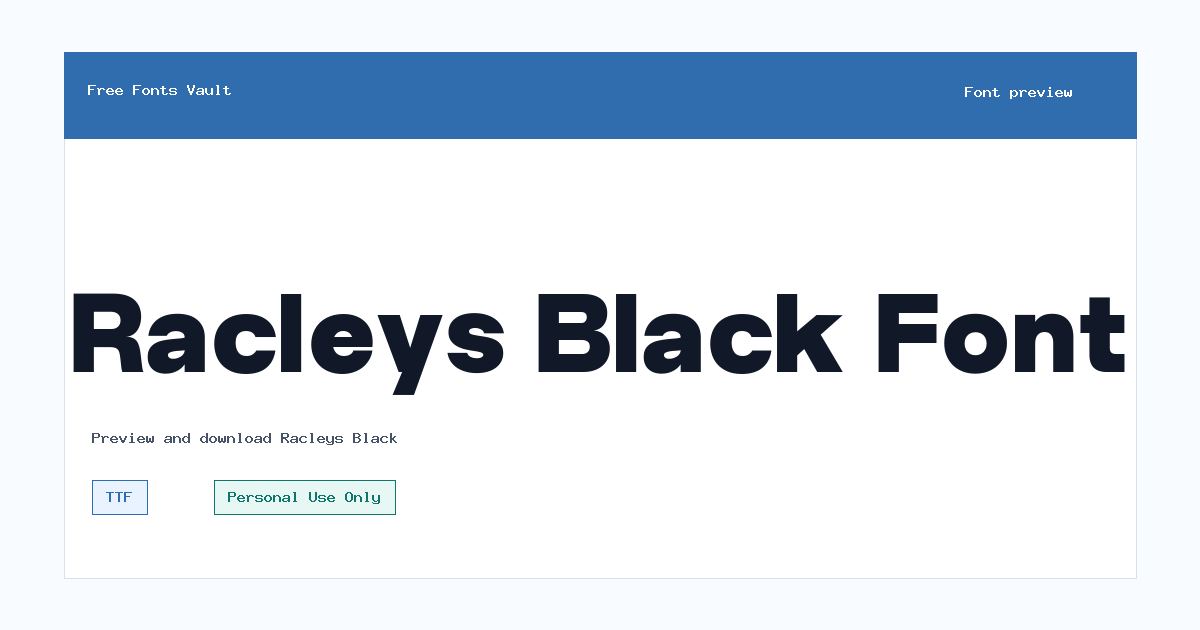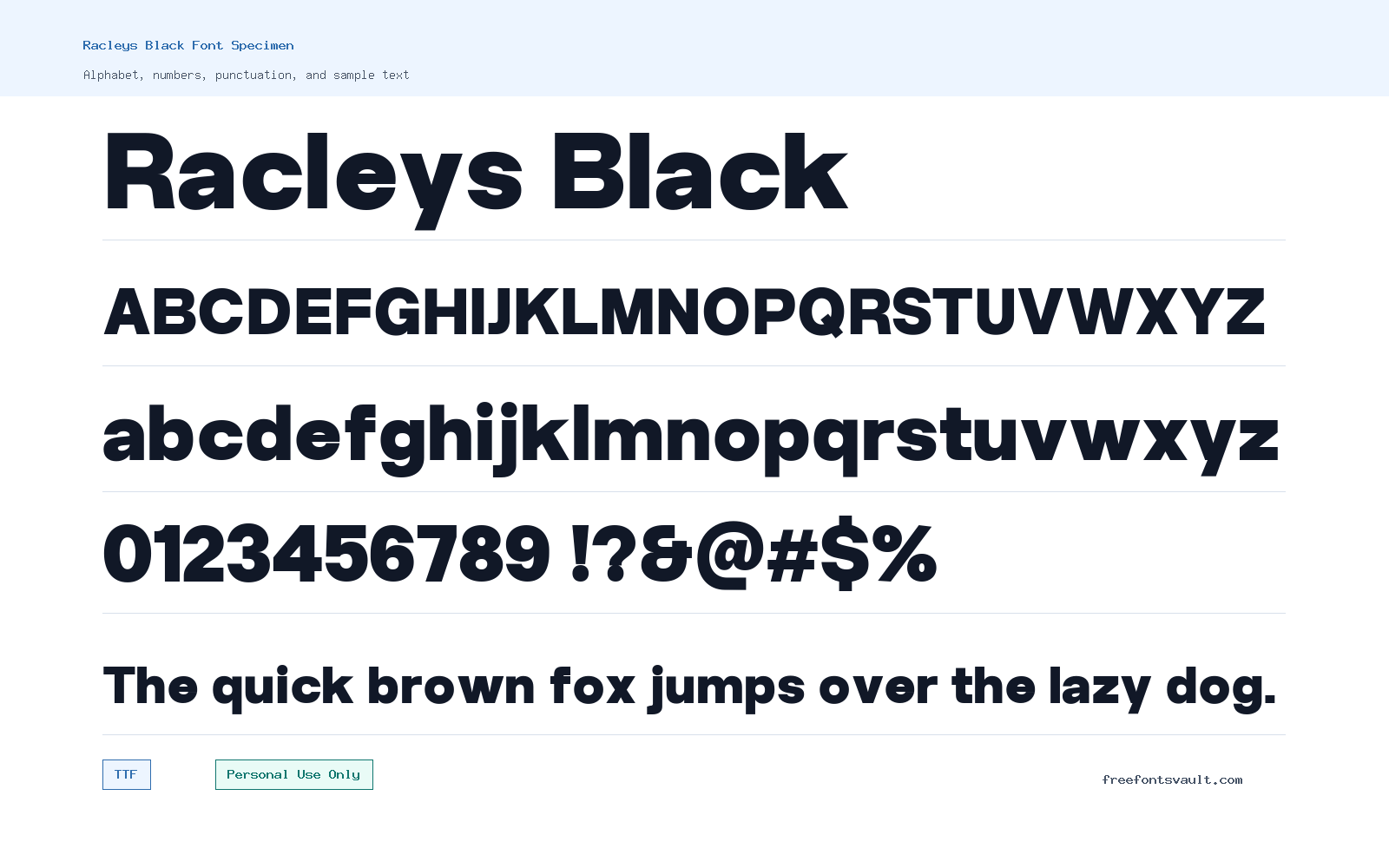
Racleys Black
Racleys Black Font
Racleys Black is a heavy display font with a strong 900-weight style, made for short text that needs clear visual impact. It is best tested in large sizes, where its bold shape can carry titles, posters, logo drafts, and branding mockups.
About Racleys Black
Racleys Black is the black-weight style from the Racleys family name, with a TTF font file and a normal style setting. Because the available weight is 900, it is built around presence rather than quiet reading. Use it where a few words need to stand out: a headline, badge, cover title, label, social graphic, or display block. It is not the kind of font to choose first for long paragraphs, small captions, or dense interface text. Heavy fonts can close up at small sizes, so the preview is the best place to test spacing, letter combinations, and readability before using it in a design.
For logo work, Racleys Black can be useful in early concepts, especially when you want a compact wordmark or a bold brand direction. Try it with short names first, then check tricky pairs such as RA, LY, AC, and CK to see whether the spacing feels even. For posters and web mockups, give the type enough breathing room and avoid stacking too many heavy elements around it. A black-weight display face usually works better when paired with a simpler text font for descriptions, menus, and body copy. Keep Racleys Black for the main message, then let a clean sans serif or readable serif handle the supporting text.
• Heavy 900-weight display style for bold titles and short text
• Useful for testing strong headline, poster, badge, and logo directions
• Best used at larger sizes where spacing and letter shapes remain clear
• Poster headlines
• Logo concepts
• Branding mockups
• Social media graphics
• Web hero titles
• Cover designs
• Badges and labels
• Short display text
The designer is listed as Glyphminds Studio, with Graphicted.Co connected to the designer information.
Use Racleys Black for short, high-impact text rather than long reading. Test the exact words you plan to use, especially in all caps or tight logo settings. For better balance, pair it with a plain, readable font for body text and keep plenty of spacing around the bold headline.
What kind of font is Racleys Black best for?
It is best used as a bold display font for short text such as posters, logos, cover titles, badges, and web hero headings.
Can I use Racleys Black for body text?
It is not ideal for long body copy. The 900-weight style is better for large headlines and short display settings.
Who designed Racleys Black?
The designer information lists Glyphminds Studio, with Graphicted.Co associated with the designer entry.